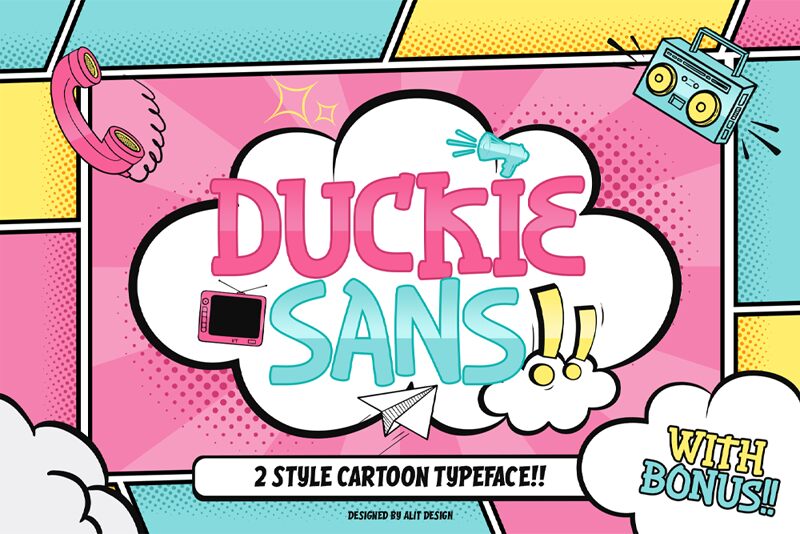
Duckie Sans Slab emerges from the playful heart of Alit Design, offering a whimsical touch to the Duckie Sans family. This display font, fashioned with a cartoon style, brings the lightheartedness of comic strips straight to your creative canvas. Its sans serif characters dance with an informal and jovial flair, making it an impeccable choice for projects aimed at children, from spirited book headers to vibrant text in comics.
Embrace the versatility of Duckie Sans Slab in diverse design landscapes that yearn for a pinch of fun. With a duo of slab serif and sans serif styles at your fingertips, you can craft non-serious concepts that resonate with youthful audiences. Plus, unlock your creativity further with 230 bonus comic-themed illustrations included to enrich your designs effortlessly.
Whether you're illustrating a children's story or branding an upbeat event, Duckie Sans Slab infuses each word with personality and playfulness-perfect for when your project demands a font as dynamic and cheerful as its content.